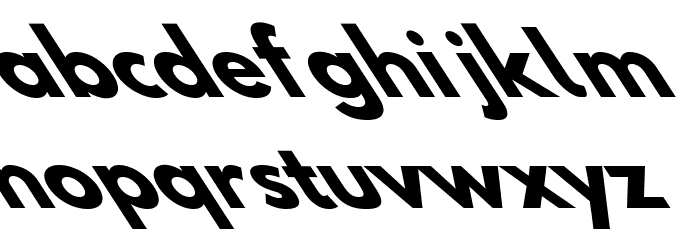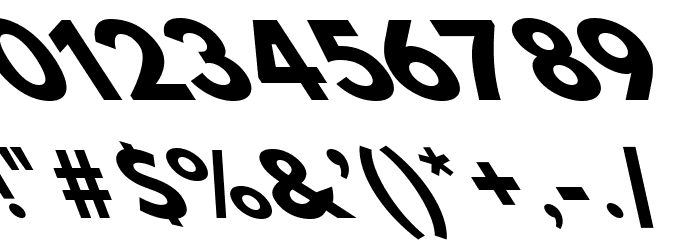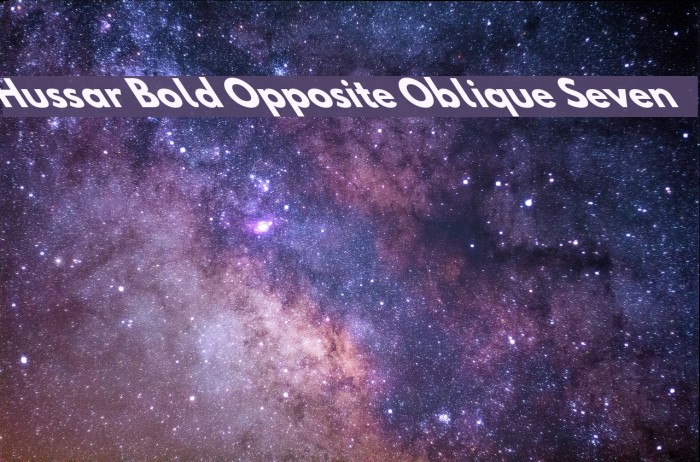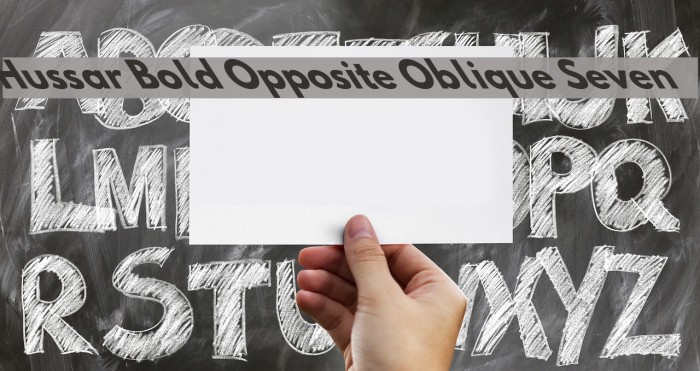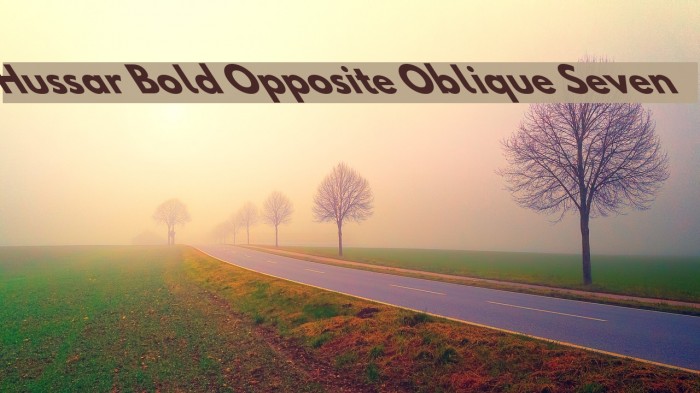
Hussar Bold Opposite Oblique Seven Font
This font features a bold and dynamic style with a distinct oblique slant, creating a sense of movement and energy. The characters are robust and impactful, making them highly visible and attention-grabbing. The uppercase and lowercase letters maintain a consistent weight, contributing to a cohesive and unified appearance. The numerals and special characters are designed with the same boldness, ensuring readability and consistency across all elements. The overall design is modern and assertive, suitable for projects that require a strong visual presence.
Bold, oblique font with a dynamic and modern style.
- Proposed Projects: Ideal for headlines, posters, branding, and advertising where a strong and energetic typeface is needed.